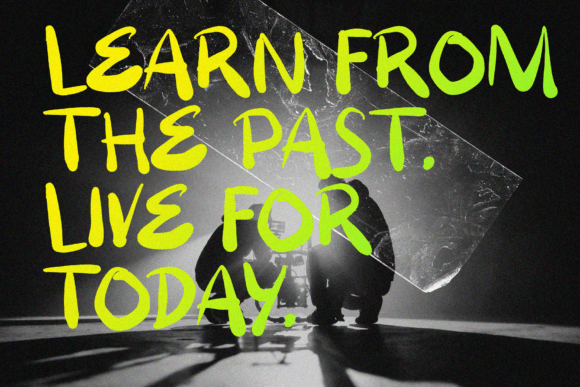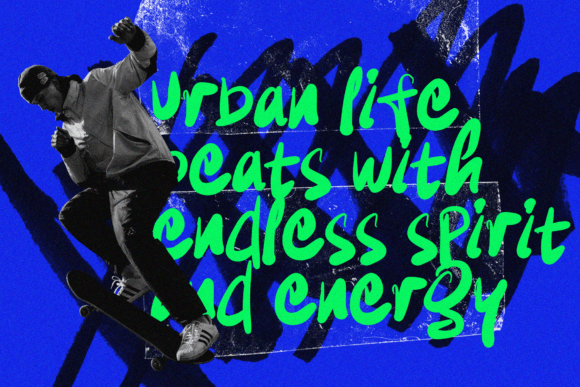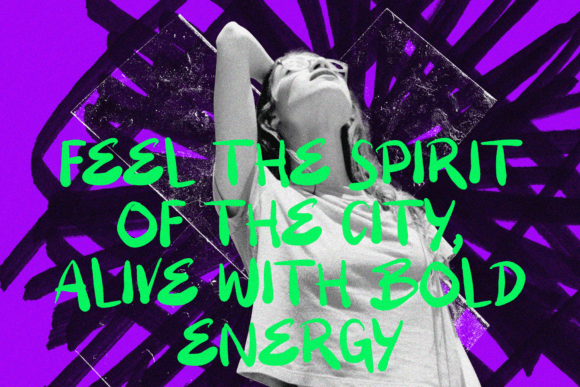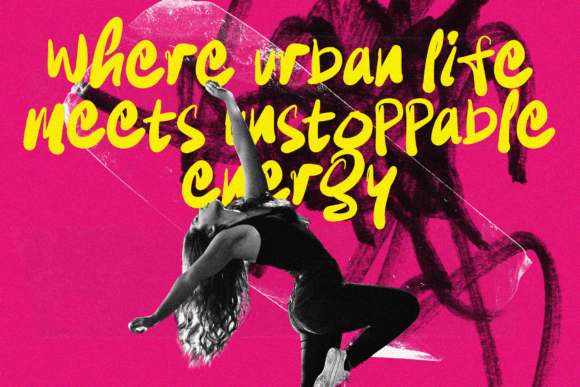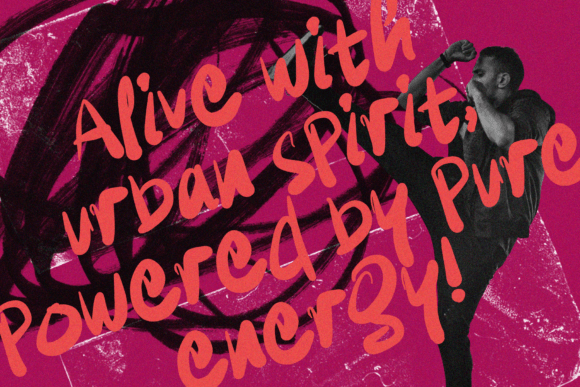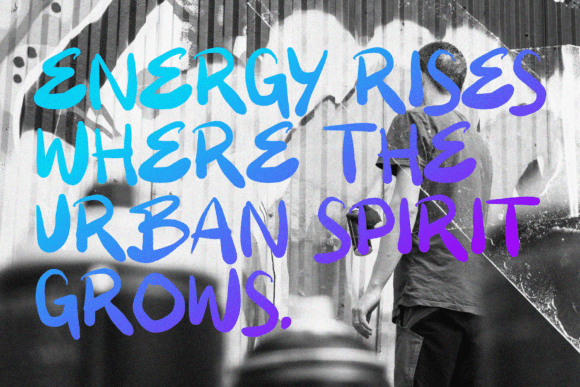
Unleash Your Creativity with Biges Font: The Ultimate Urban Brush Font
Are you tired of using the same old fonts in your design projects? Look no further than Biges Font, an expressive urban brush font that bursts with vibrant energy and creative attitude. Designed with bold strokes and dynamic movement, Biges captures the raw spirit of street culture and the fearless personality of hand-painted lettering.
The Inspiration Behind Biges
Biges Font is inspired by the urban landscape and the world of street art. Its bold, expressive strokes and lively textures evoke the feeling of hand-painted lettering and graffiti. The font’s designer aimed to create a typeface that would embody the fearless and creative spirit of urban culture, and Biges certainly delivers.
Key Features of Biges Font
- Bold Strokes: Biges features bold, dynamic strokes that give it a lively and energetic feel.
- Lively Textures: The font’s textures are reminiscent of hand-painted lettering, adding a touch of authenticity to your designs.
- Urban Flair: Biges has a distinctly urban feel, making it perfect for projects that require a modern, edgy look.
- Expressive: The font’s expressive strokes and dynamic movement make it perfect for conveying emotion and attitude in your designs.
Biges Font is perfect for projects that demand visual impact. Its bold, energetic, and unapologetically creative style makes it ideal for:
- Branding for Creative Agencies: Use Biges to create bold, eye-catching logos and branding materials that showcase your agency’s creative personality.
- Urban Posters: Biges is perfect for designing posters and flyers that require a bold, attention-grabbing headline.
- Headlines and Titles: Use Biges to add a touch of urban flair to your headlines and titles, making them stand out on any design.
Why Choose Biges Font?
With so many fonts to choose from, why should you choose Biges? Here are just a few reasons:
- Unique Style: Biges has a unique, one-of-a-kind style that will set your designs apart from the crowd.
- Instant Character: The font brings instant character and modern edge to your work, making it perfect for designers who want to add a touch of personality to their designs.
- Versatile: Biges can be used in a variety of design projects, from branding and advertising to packaging and more.
Tips for Using Biges Font
Here are a few tips for getting the most out of Biges Font:
- Use it Bold: Biges is designed to be used bold, so don’t be afraid to go big or go home.
- Experiment with Colors: The font’s bold strokes and lively textures look great in a variety of colors, so experiment to find the perfect hue for your design.
- Pair it with Other Fonts: Biges pairs well with a variety of other fonts, so feel free to get creative and experiment with different combinations.
Biges Font is an expressive urban brush font that’s bursting with vibrant energy and creative attitude. With its bold strokes, lively textures, and urban flair, it’s perfect for designers who want to add a touch of personality to their work. Whether you’re working on branding for a creative agency, designing an urban poster, or crafting a high-energy headline, Biges is the perfect choice. So why wait? Download Biges Font today and unleash your creativity!